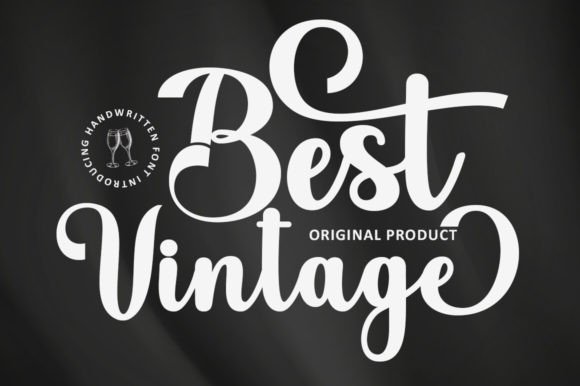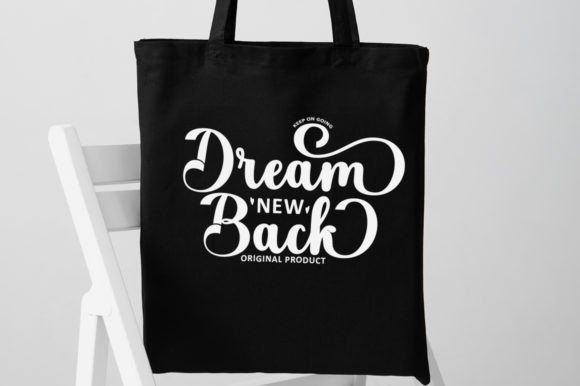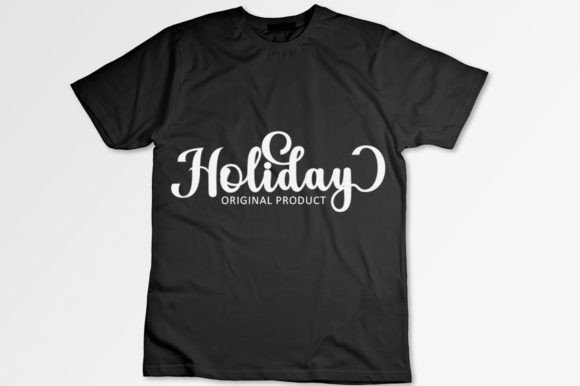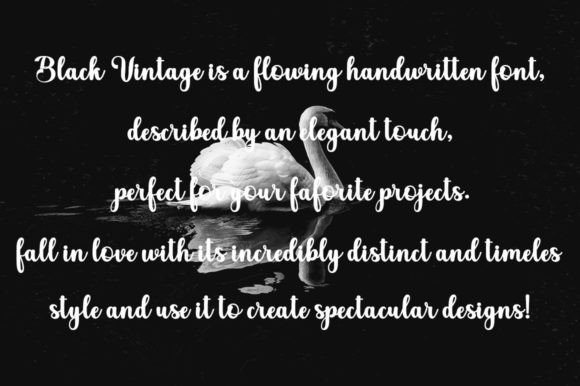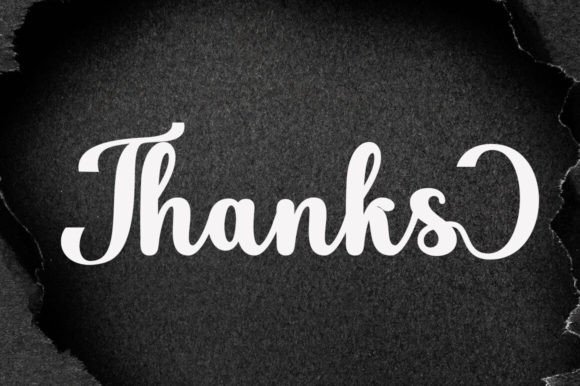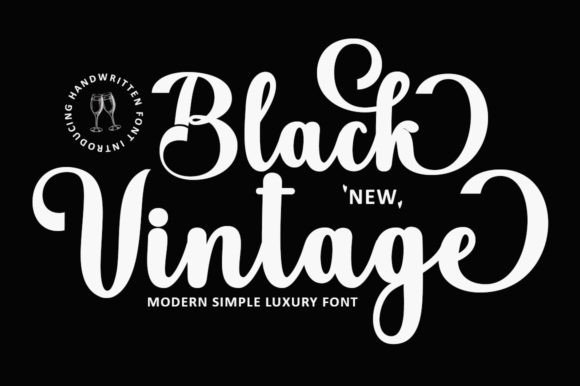
The Power of Black Vintage Font: Elevate Your Designs with Elegance
I still remember the design project that led me to discover the stunning Black Vintage Script font. I was working on a luxury brand’s invitation suite, and my client requested a sophisticated, high-end feel. As I scoured font libraries and design resources, I stumbled upon this elegant script font that instantly caught my eye. With its classic copper decorative script style and modern touch, Black Vintage Script brought the perfect blend of glamour and refinement to the project.
An Honest Review: What I Love and What to Consider
- ✨ Elegant and refined: The font’s classic style and luxurious connections make it perfect for high-end designs.
- ✅ Clean and readable: Despite its ornate details, Black Vintage Script remains surprisingly easy to read.
- ✨ Feminine and sensual: The font’s curves and swashes add a touch of glamour and sophistication.
- ✅ Versatile: Suitable for various design applications, from invitations to logos, magazines, and more.
- ⚠️ Occasional kerning issues: As with any script font, some letter combinations may require manual kerning adjustments.
- 🤔 Not ideal for body text: While readable, Black Vintage Script shines brightest in headlines, titles, and short paragraphs.
A Brief Backstory: The Inspiration Behind Black Vintage Script
Legend has it that Black Vintage Script was inspired by the ornate copperplate engravings found in vintage luxury goods catalogs. The font’s designer aimed to capture the essence of these classic designs, infusing them with a modern twist to create a truly unique and elegant typeface.
| Font Name | Black Vintage Font |
| Author | AF Type |
Q: What makes Black Vintage Script suitable for luxury brands?
A: The font’s elegant, refined design and luxurious connections evoke a sense of high-end sophistication, making it perfect for luxury brands.
Q: Can I use Black Vintage Script for body text?
A: While Black Vintage Script is surprisingly readable, it’s best suited for headlines, titles, and short paragraphs due to its ornate details.
Q: Does Black Vintage Script come with swashes and ligatures?
A: Yes, Black Vintage Script features a range of swashes, ligatures, and stylistic alternates to add flair to your designs.